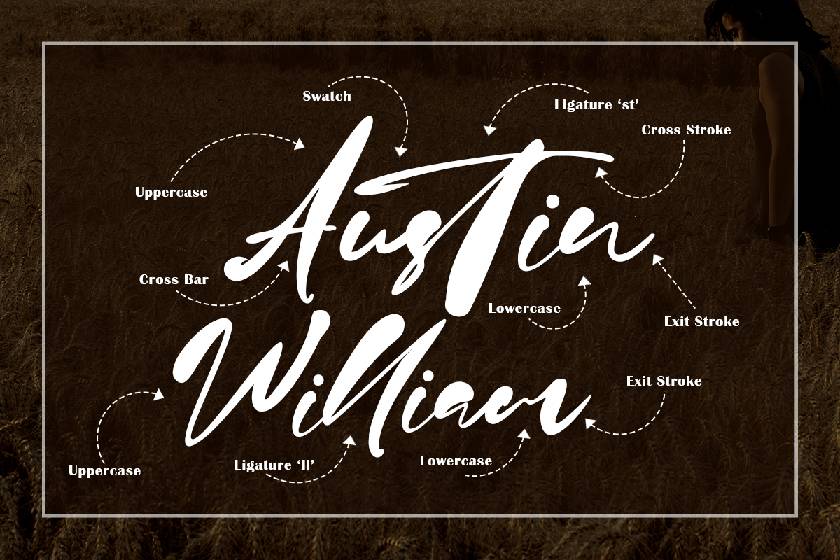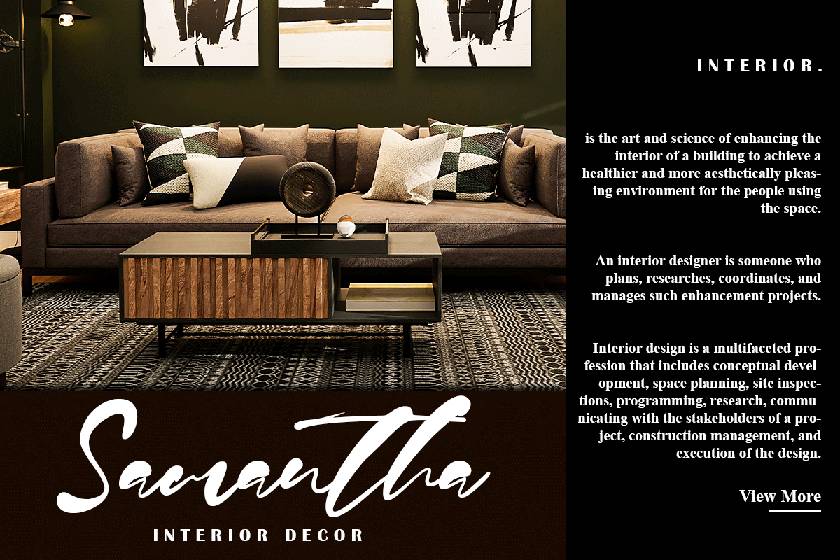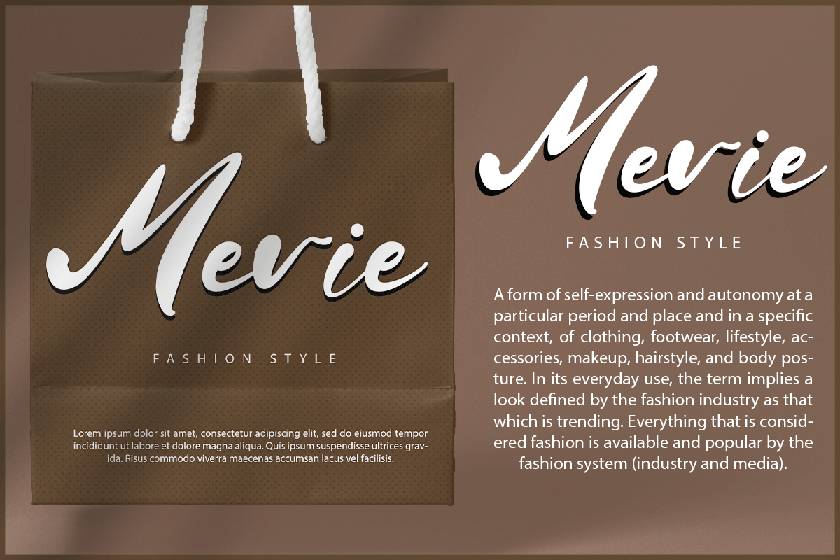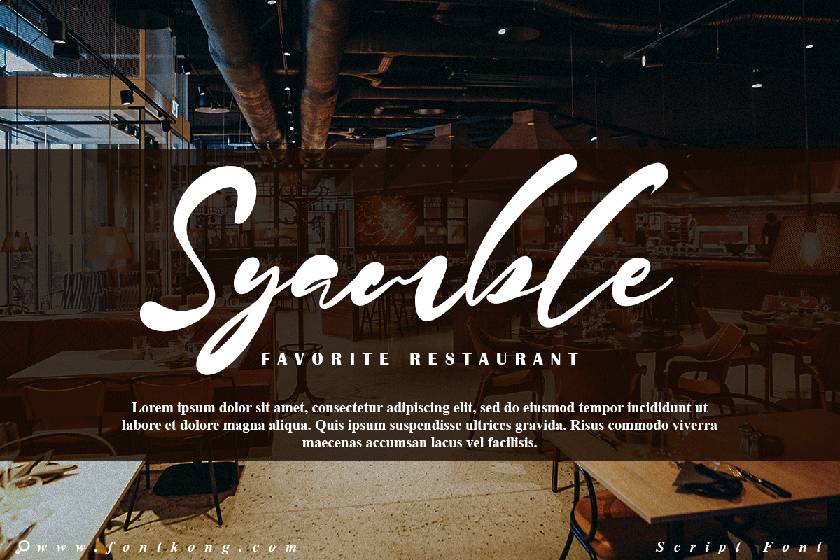
Jason Mary is a stylish script font with a flowing, hand-brushed feel that combines elegant curves and bold strokes. Its lively, slightly informal character makes it perfect for creative projects such as branding, invitations, and headlines where a personal, artistic touch is desired. This font shines in designs that aim to convey warmth, creativity, and sophistication without losing readability.
Jason Mary Font
About Jason Mary Font
| Font family | Jason Mary Font |